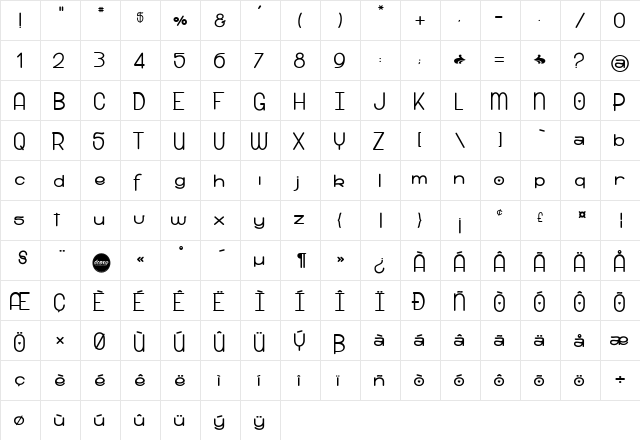
snow riders xo Regular Font Preview
snow riders xo Regular
snow riders xo Regular Font Details
| Foundry | dcoxy Medina Gregory |
| Designer | dcoxy Medina Gregory |
Design Context for snow riders xo Typeface
snow riders xo offers clean, dependable letterforms without strong stylistic allegiance, making it a practical choice for designers who need flexibility.